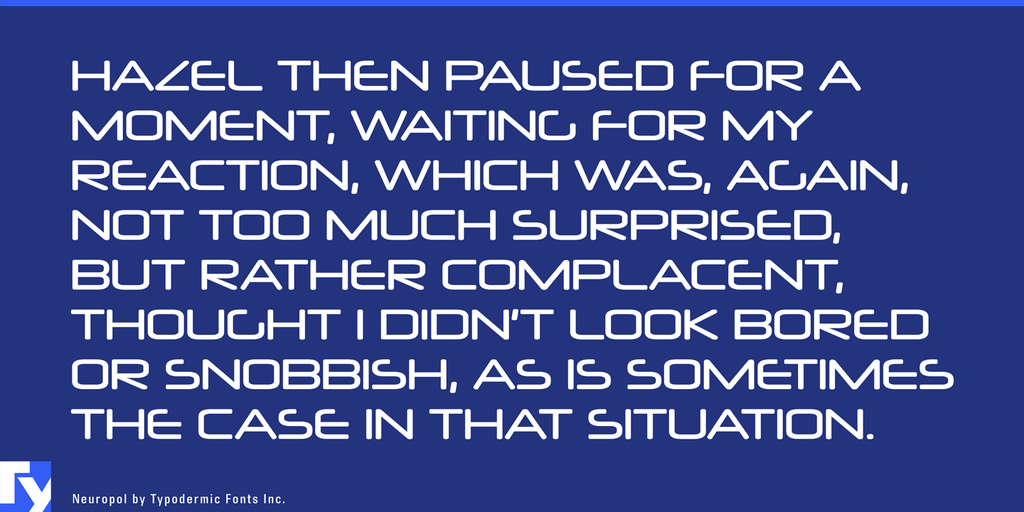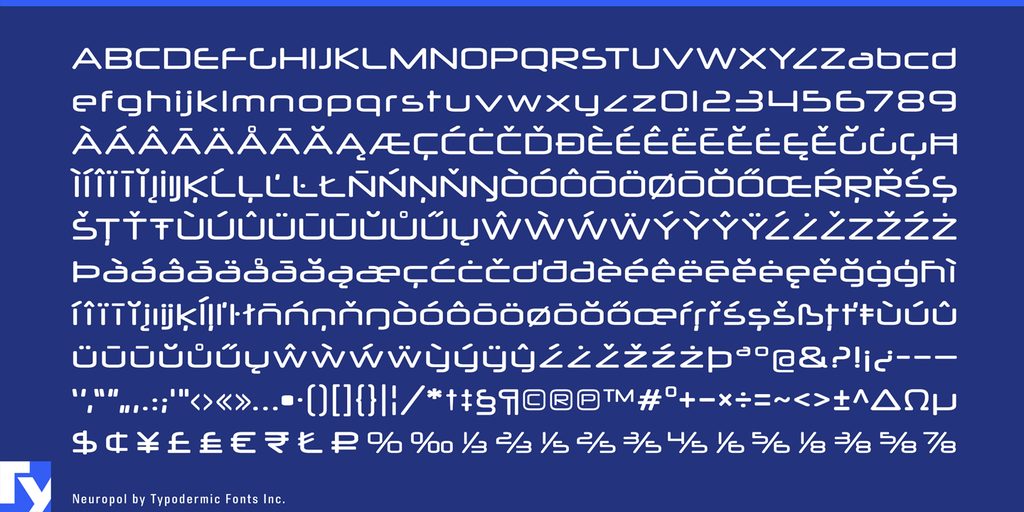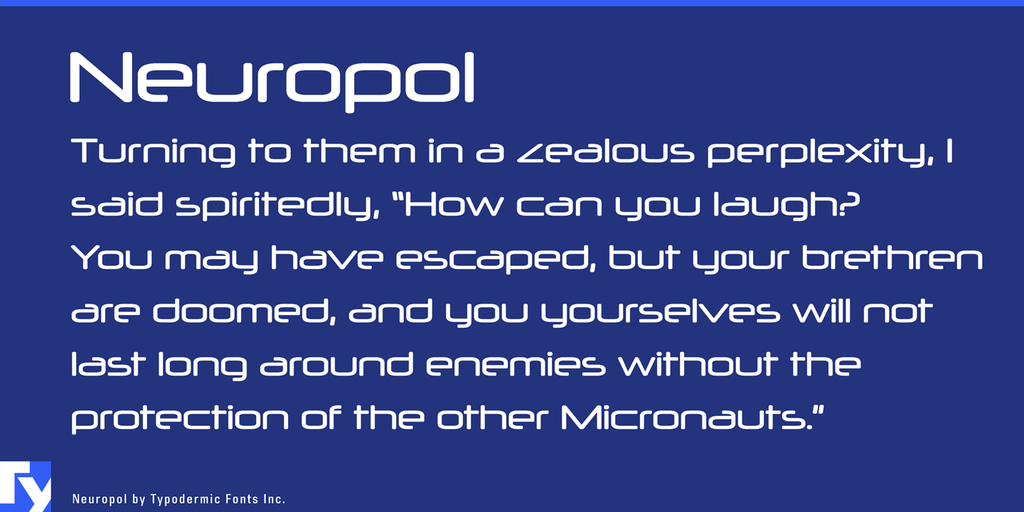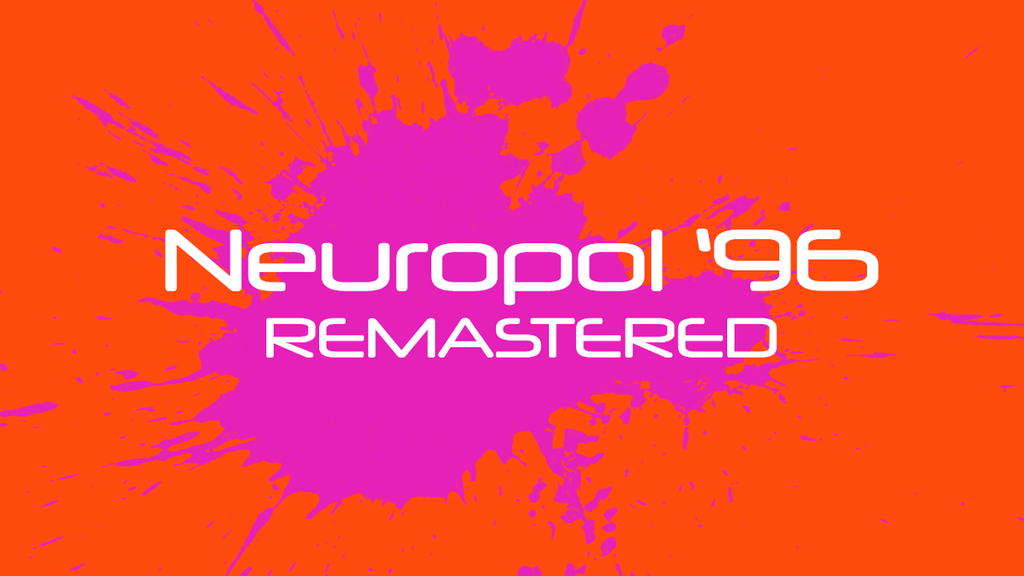
Neuropol Font
Neuropol is a wide, starkly futuristic typeface which was created in 1996. The design is based on rounded squares which were popular in earlier techno fonts such as Microgramma, Digital and Chimes. The superelliptical stroke ends give Neuropol a harmonized appearance. Truncated horizontal strokes suggest lasers or vector-beam traces. Over the last few decades, several Neuropol related font families have been released. Neuropol had been redrawn and expanded into Neuropol X in 2004. The original Neuropol font was discontinued at that time but some people still prefer the 1996 version. In 2015, the original 1996 Neuropol was restored and re-released. Changes include: better kerning, higher dots on i and j, cleaner curves, heavier accents, more languages, more punctuation, the latest monetary symbols and a better @ symbol. If your application supports OpenType stylistic alternates, you can access a complete Z, similar to the one in Neuropol X.